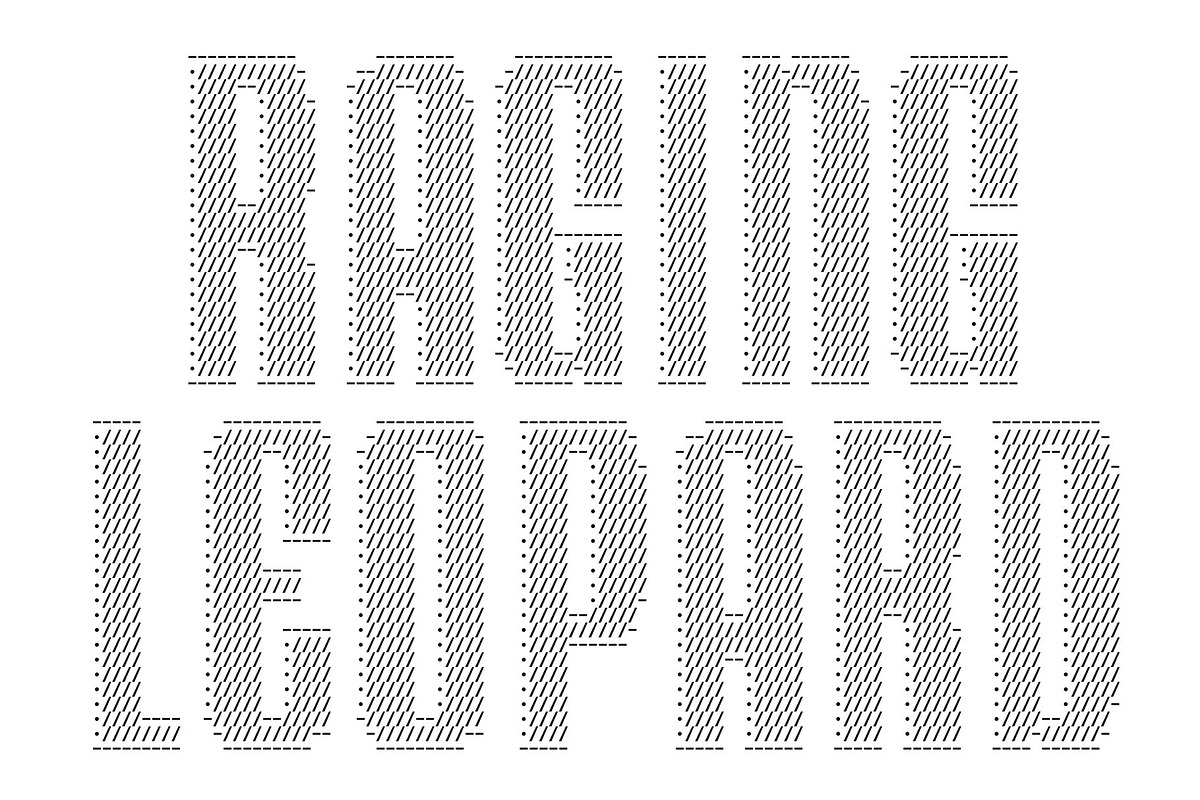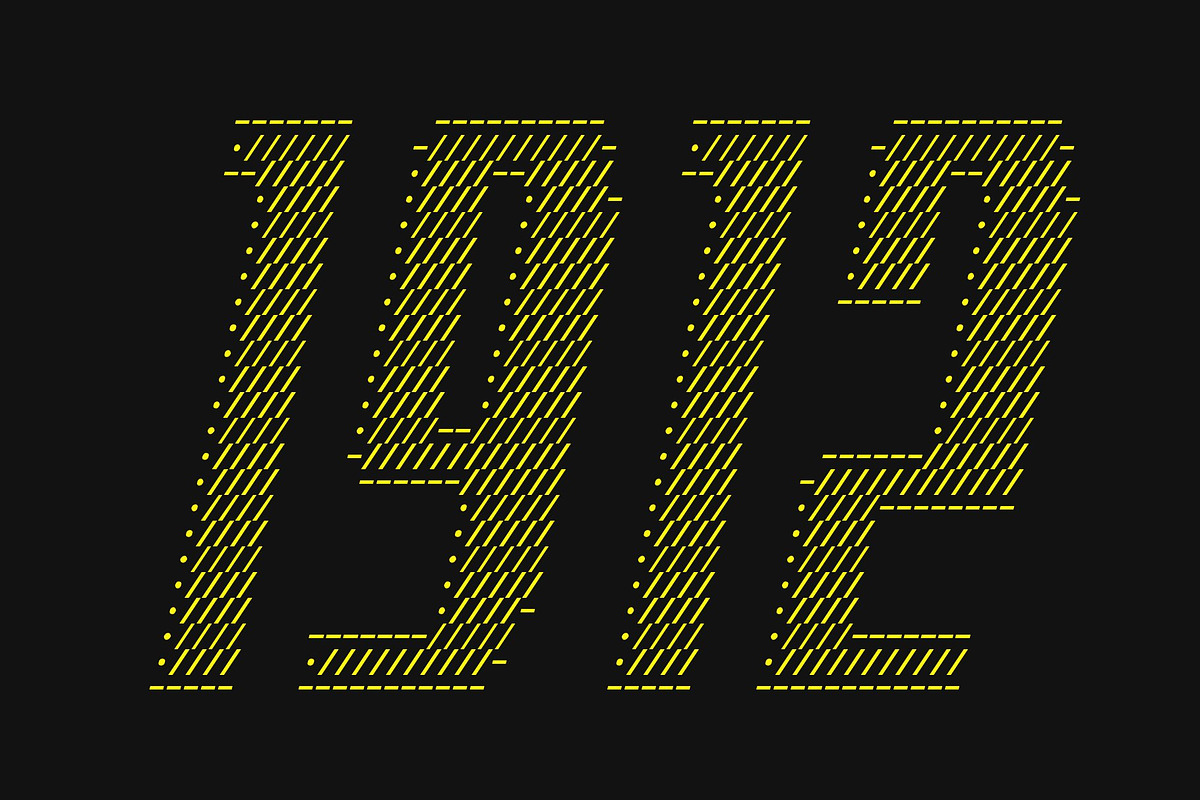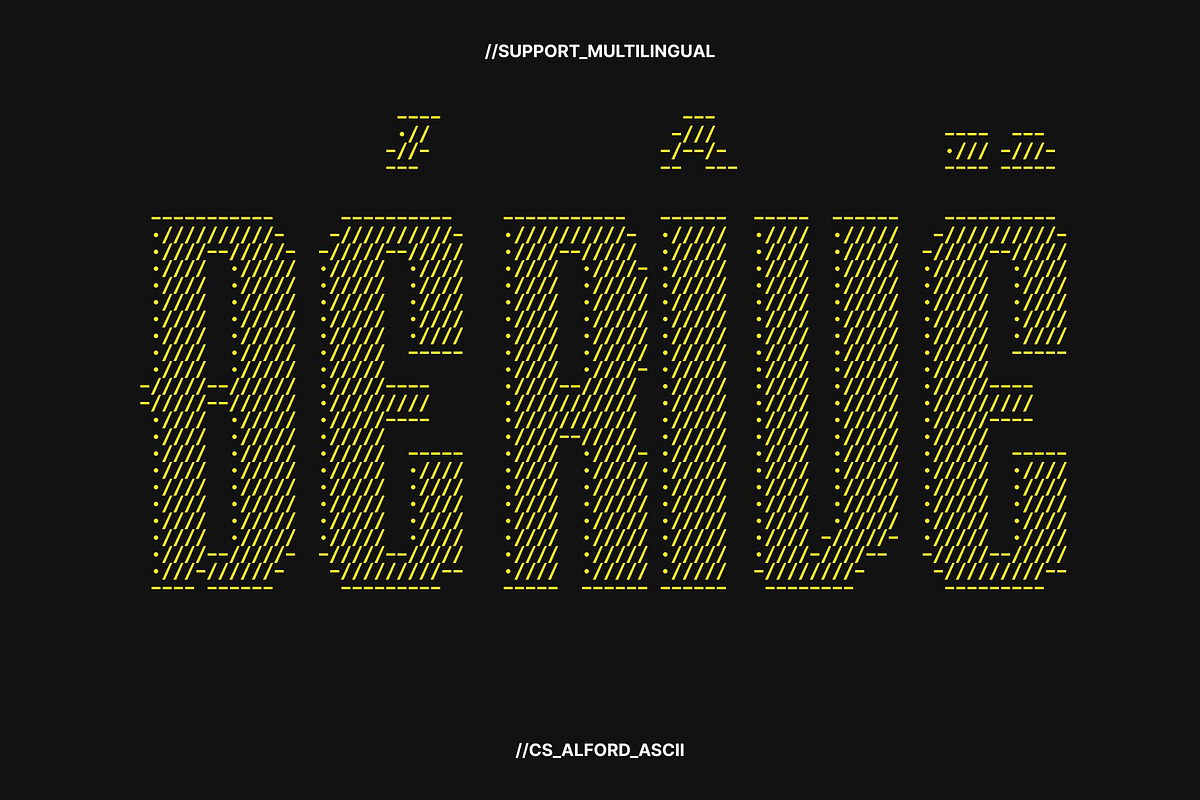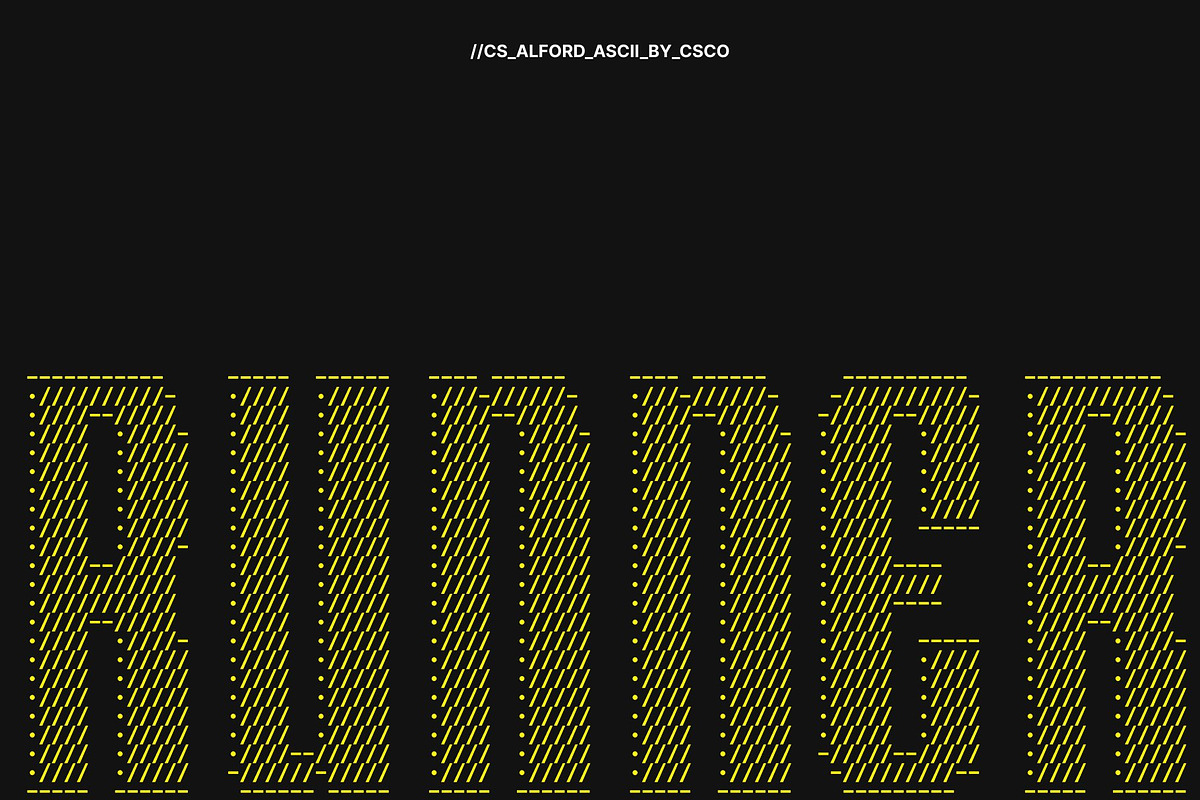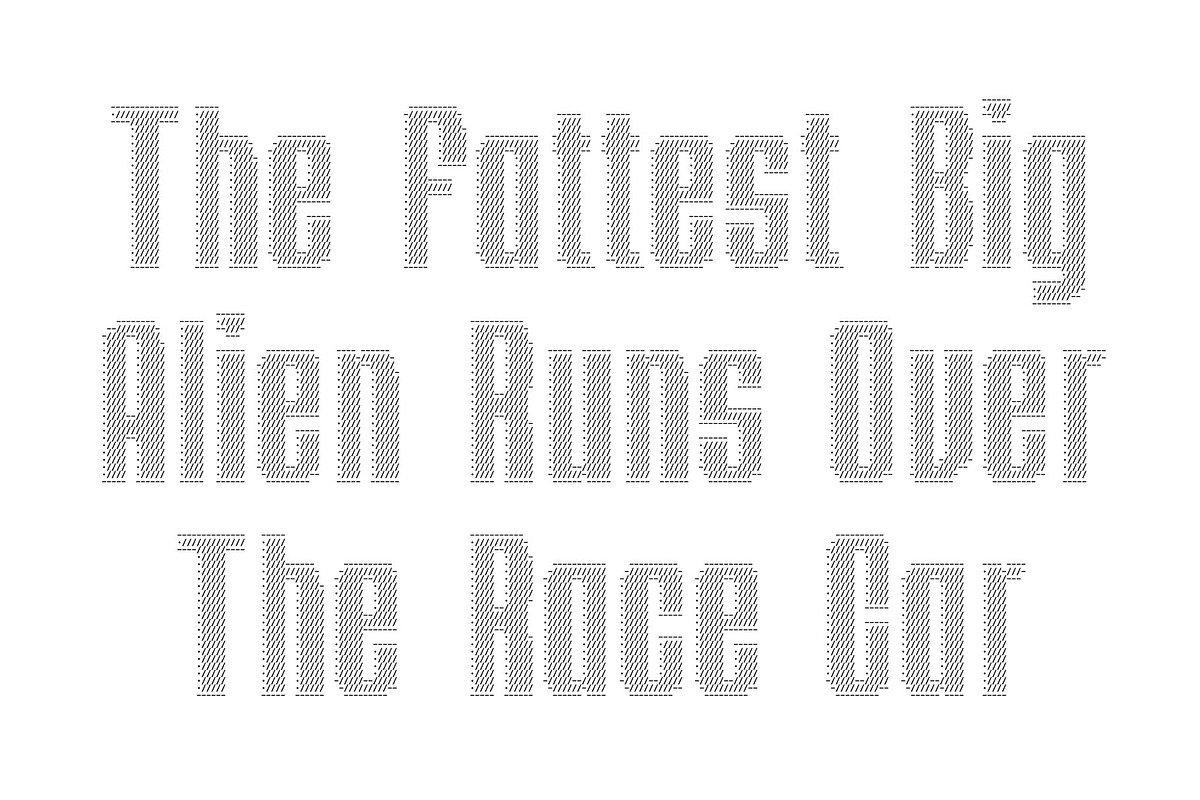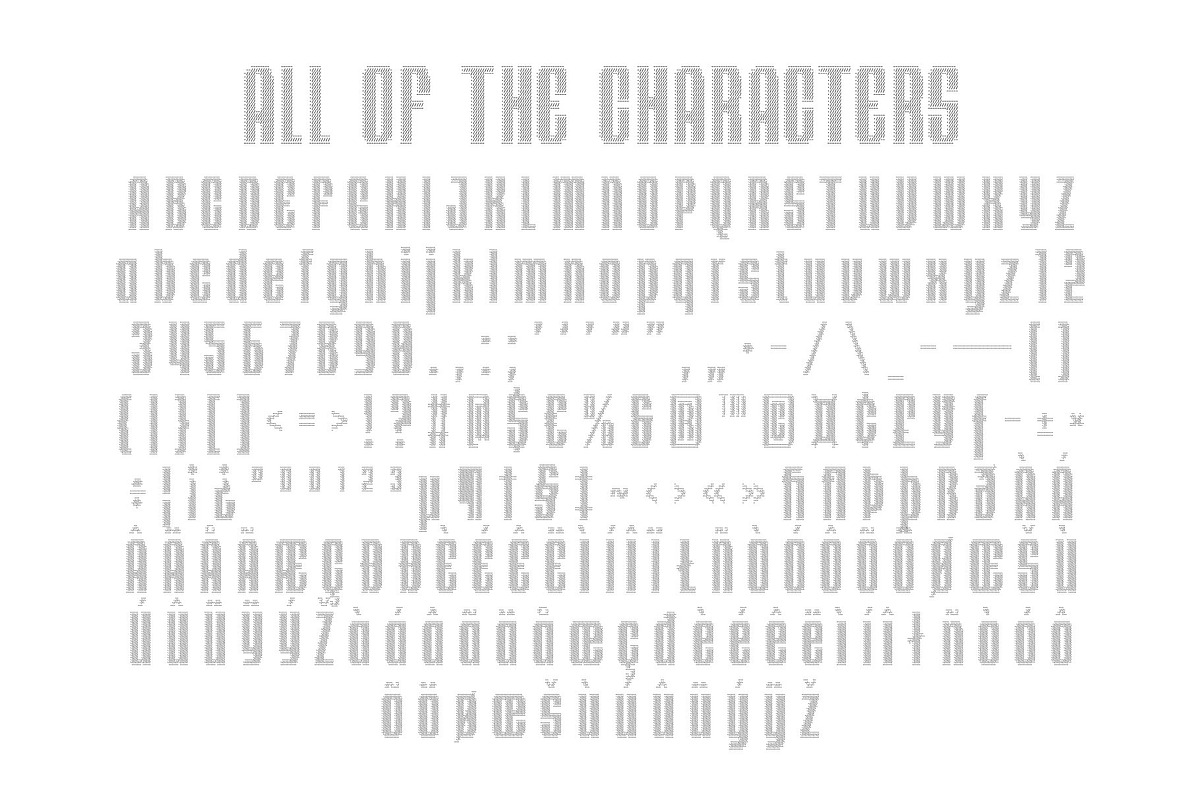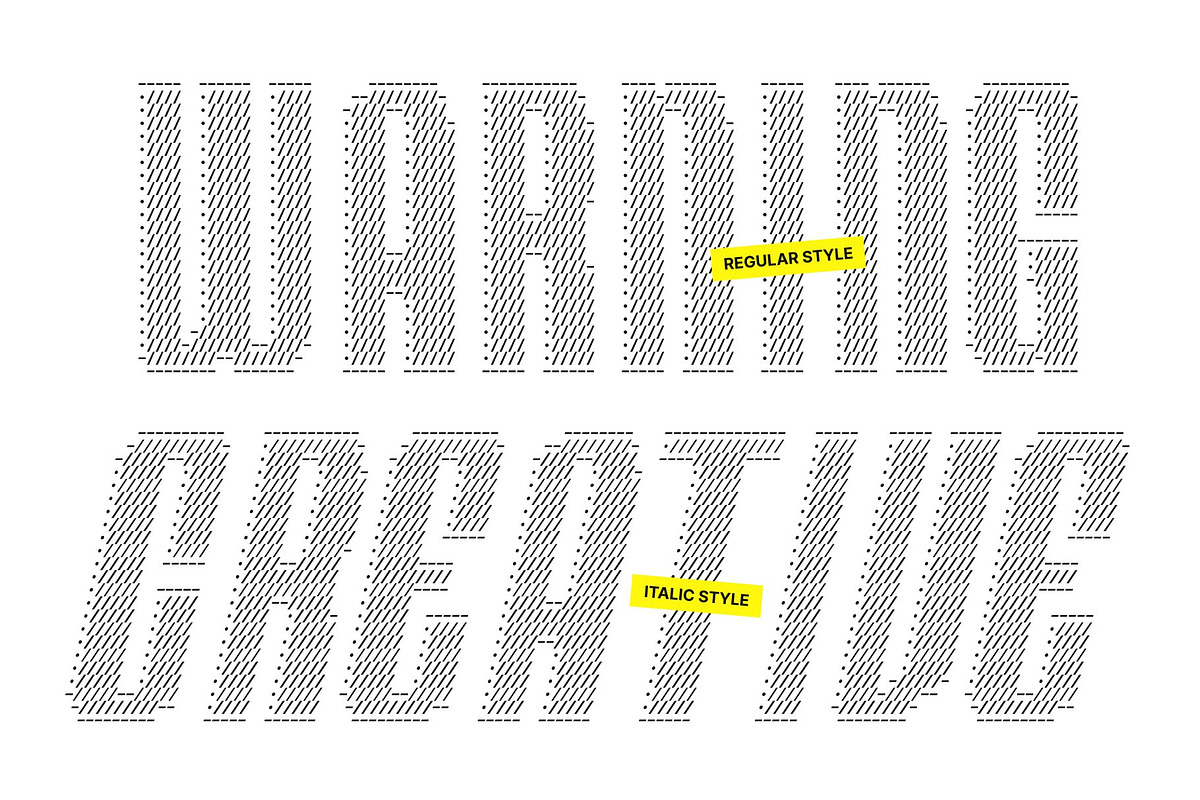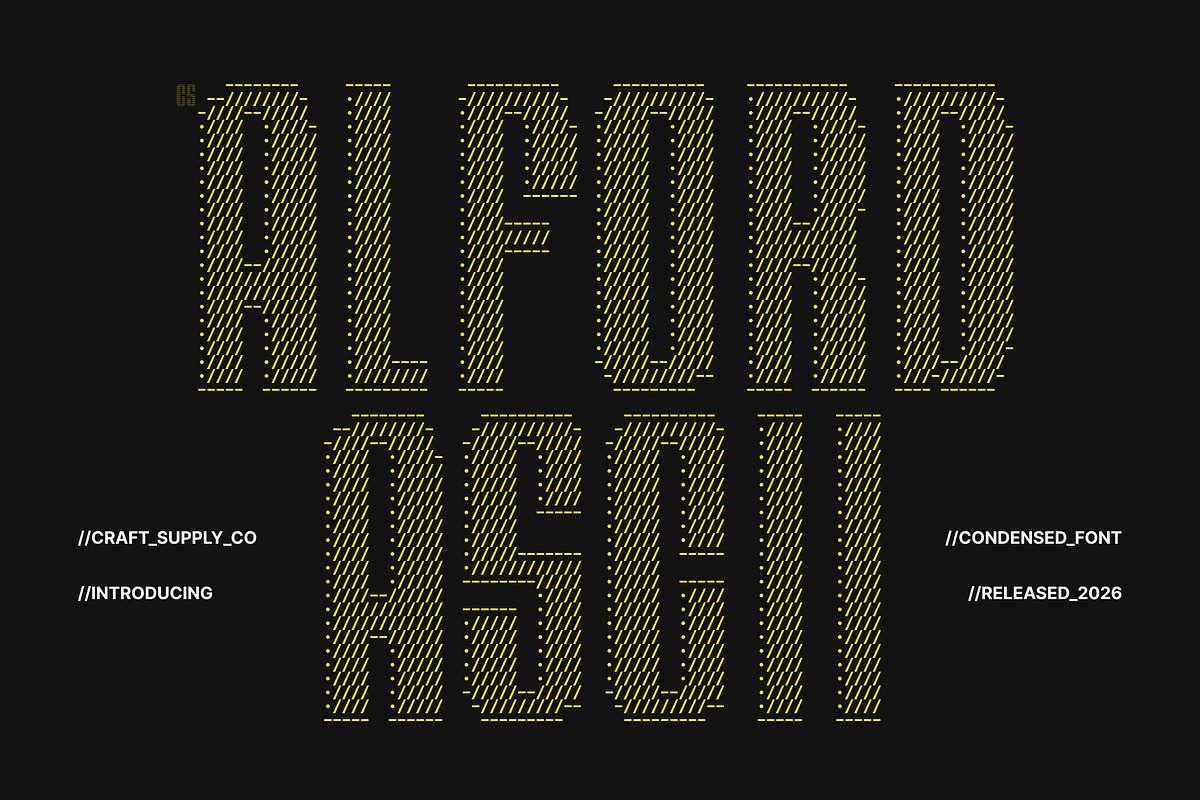
CS Alford Ascii
CS Alford Ascii – Condensed Sans Serif Font: Where Industrial Strength Meets Digital Symbol Design
Bold Industrial Forms with Technical Precision This is a modern condensed sans serif font designed with bold proportions and a strong industrial aesthetic. Its narrow structure and solid geometric forms create a masculine, technical, and highly impactful visual presence that feels modern, rugged, and functional. Every character is crafted to maximize strength and readability, making the font perfect for bold display applications and industrial-inspired branding.
ASCII Style with Symbolic Decorative Texture This font transforms typography into graphic compositions built from arranged characters and symbols. Inspired by classic terminal graphics and text-based digital art, the font creates decorative textures that resemble images while maintaining clear legibility. This symbolic styling introduces a retro-digital atmosphere filled with cyber-inspired character and technological edge.
Industrial Utility with Futuristic Digital Energy This font delivers a typographic identity that feels rugged, technical, and visually immersive. Its bold structure and symbolic textures evoke mechanical environments, coding culture, and industrial utility, creating a distinctive atmosphere ideal for modern functional design projects.
Perfect for Garage Branding, Merchandise, and Utility Design This is ideal for custom garage logos, accessory packaging, rugged utility brands, merchandise, posters, industrial labels, and technical promotional materials. Its condensed ASCII-styled forms make it perfect for logos, apparel graphics, signage, streaming visuals, and modern visual identities that seek a bold and masculine appearance.